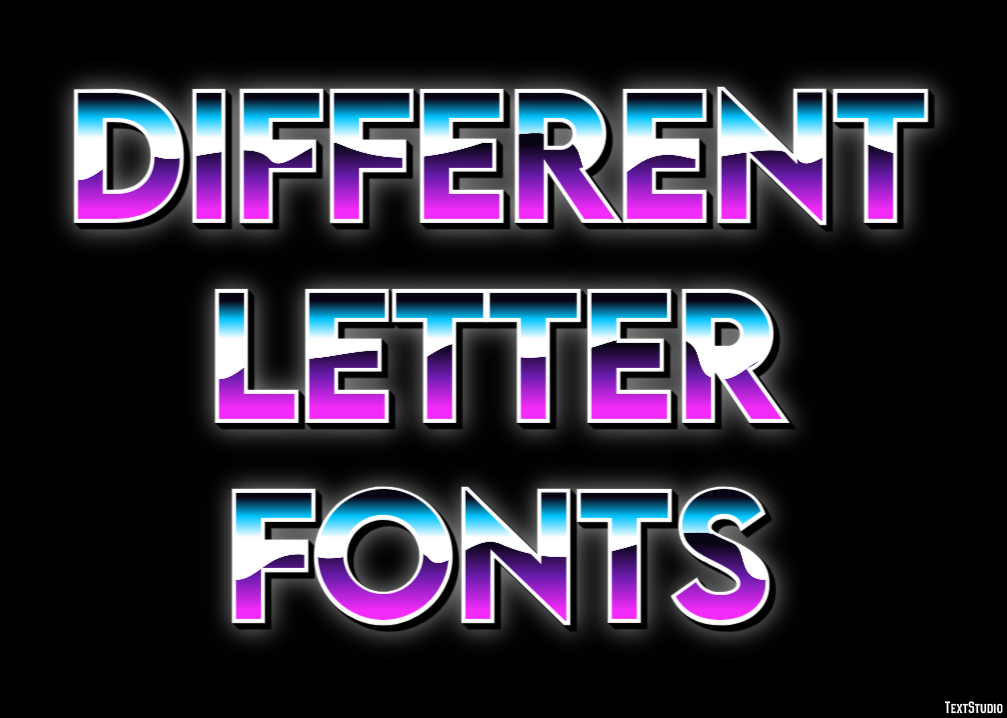
Arcade Text effect
Different Letter Fonts Text Effect
Font effect designs Different Letter Fonts.
Transform your text into captivating works of art with our cutting-edge font style text effect generator. Explore a vast collection of arcade-inspired fonts, reminiscent of the iconic 80s retro and retrowave era. Unleash your creativity and add a touch of purple arcade magic to your designs.